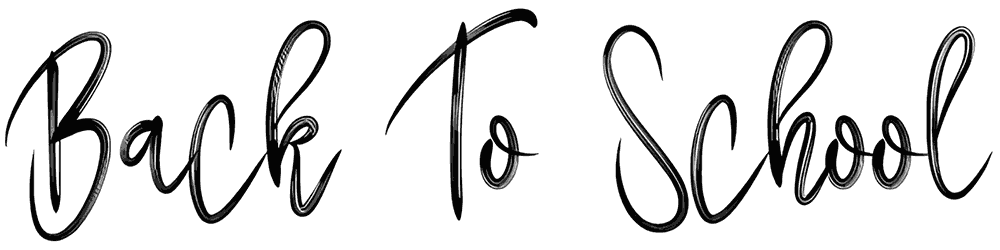
Back To School Font
Back To School is a school font with a casual, organic appearance that is ideal for study notes and dorm room posters alike. Your work will stand out from the crowd because of its charming curves and hand-drawn vibe, and you’ll never lose points due to unreadable handwriting again, thanks to the font’s clean, modern design.